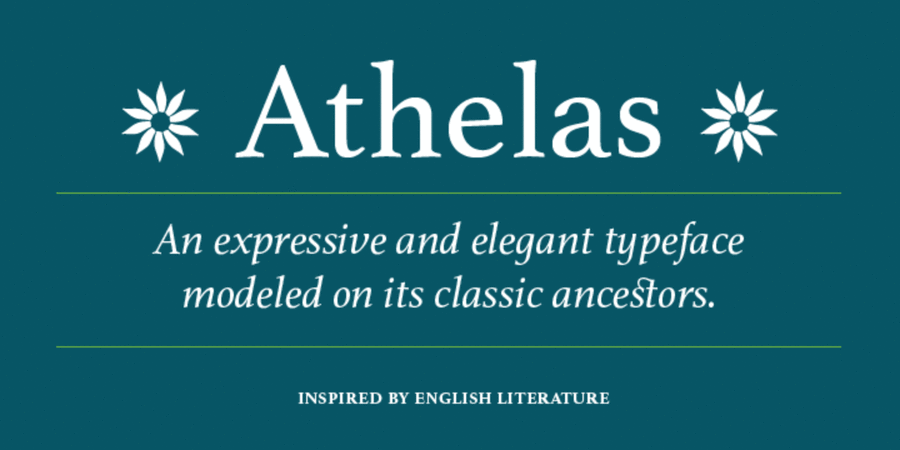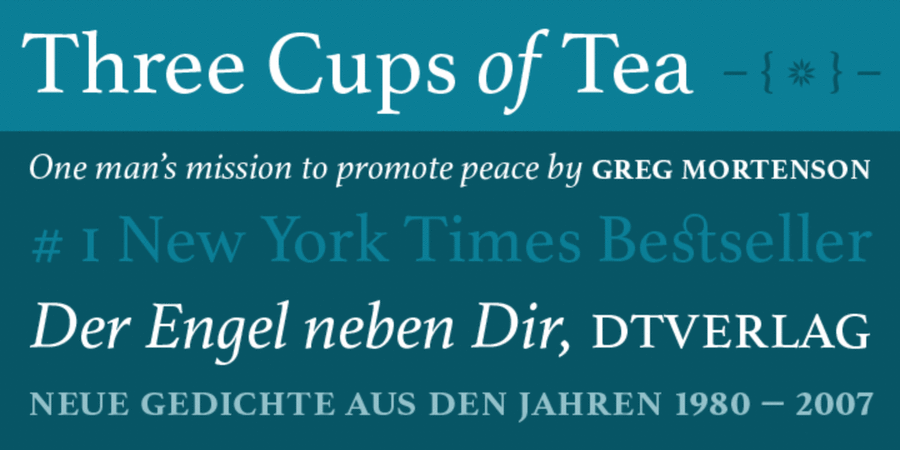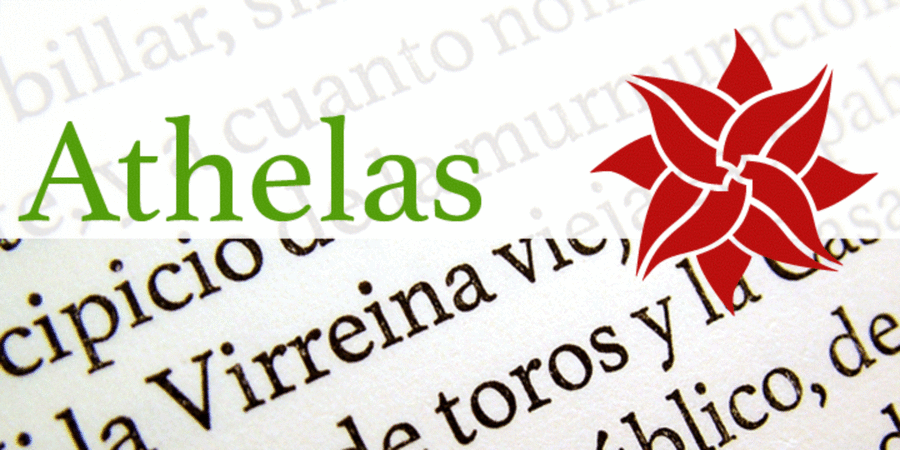
An attempt to go back towards the beauty of fine book printing, inspired in Britain's literary classics. Athelas was awarded, First prize on Granshan Type Design Competition 2008. This typeface takes full advantage of the typographic silence, that white space in the margins, between the columns, the lines, the words, the lettershapes and finally, within the characters themselves. It is also intended to take advantage of the great advances and technical developments made in offset printing. Athelas shows its best side in finely crafted book editions and good printing conditions. Athelas has a large character set that covers most of the languages that use the Latin, Cyrillic and Greek scripts. Although inspired in British literature, this typeface respects the cultural values behind different languages, where diacritic marks have an utterly important role. Athelas features four weights and about 1000 characters per weight, including small caps, discretionary ligatures, fractions, a complete range of numerals for every use and a set of ornaments and arrows.
The typeface was designed by Veronika Burian, Jose Scaglione and released by TypeTogether foundry in 2008.
comme il faut, noble, conservative, traditional, classic, pretentious, artistic, silver, educated, masterful, architectural, aristocratic, elite, high-quality, historical, humanitarian, dynamic, accurate, expensive, clever, polite, elegant, beautiful, orderly, regardful, diligent, tactful, exemplary, refined